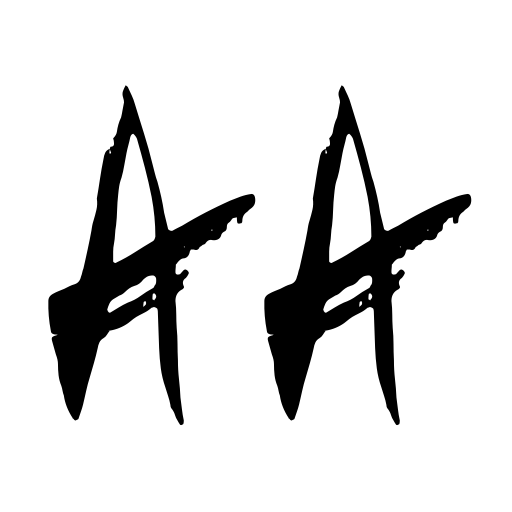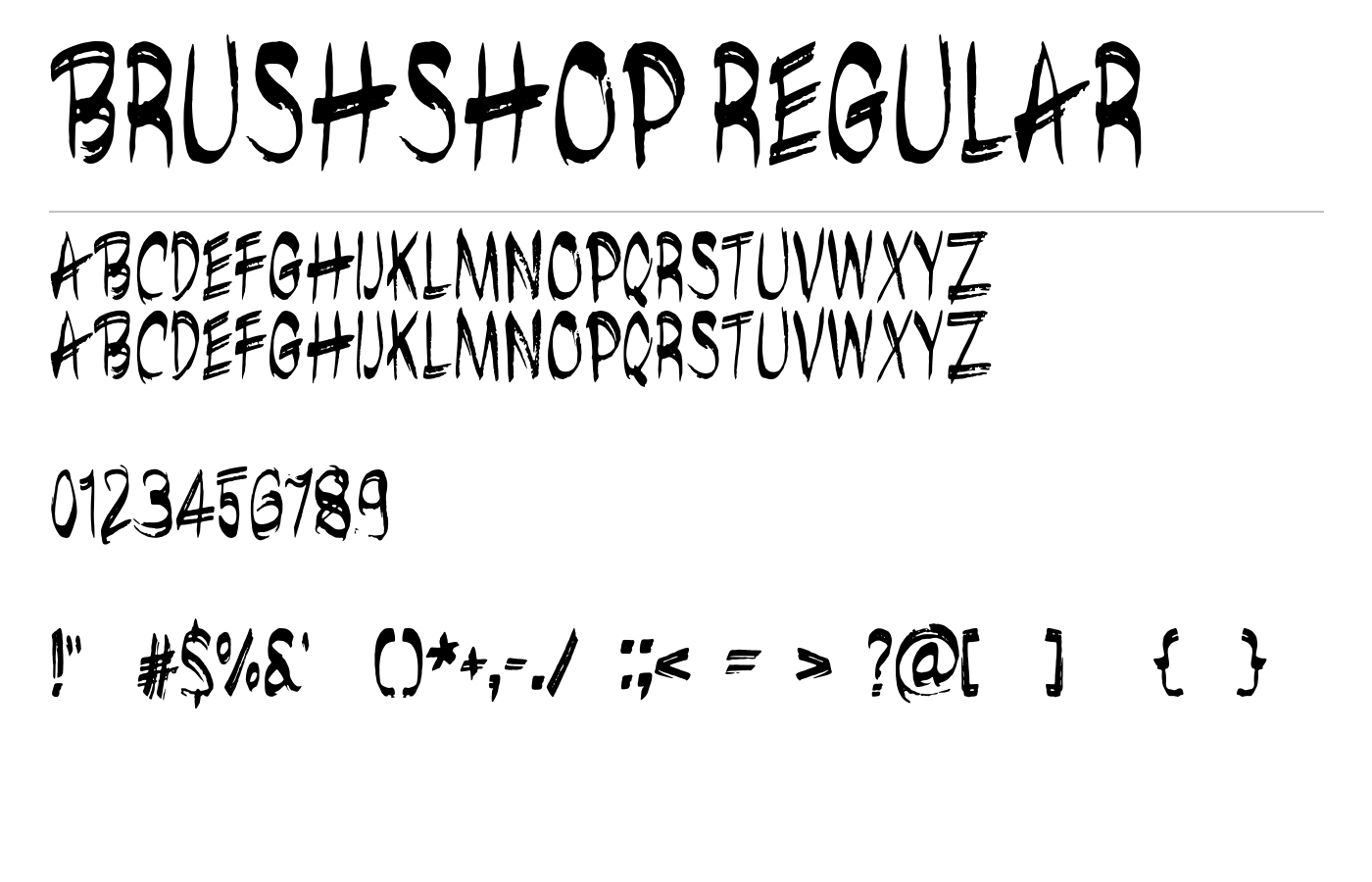
Brushshop Regular is a dynamic sans serif font with a raw, hand-painted brush style that gives it a bold and energetic personality. Its irregular, textured strokes and tall, narrow letterforms create a striking, edgy look perfect for creative headlines, posters, and designs that want to convey a sense of artistic spontaneity and urban flair. This font excels in projects where a casual yet impactful statement is needed, such as branding for streetwear, music events, or expressive editorial layouts.
brushshop regular Font
About brushshop regular Font
| Font family | brushshop regular Font |
| Designer | Cruzine |